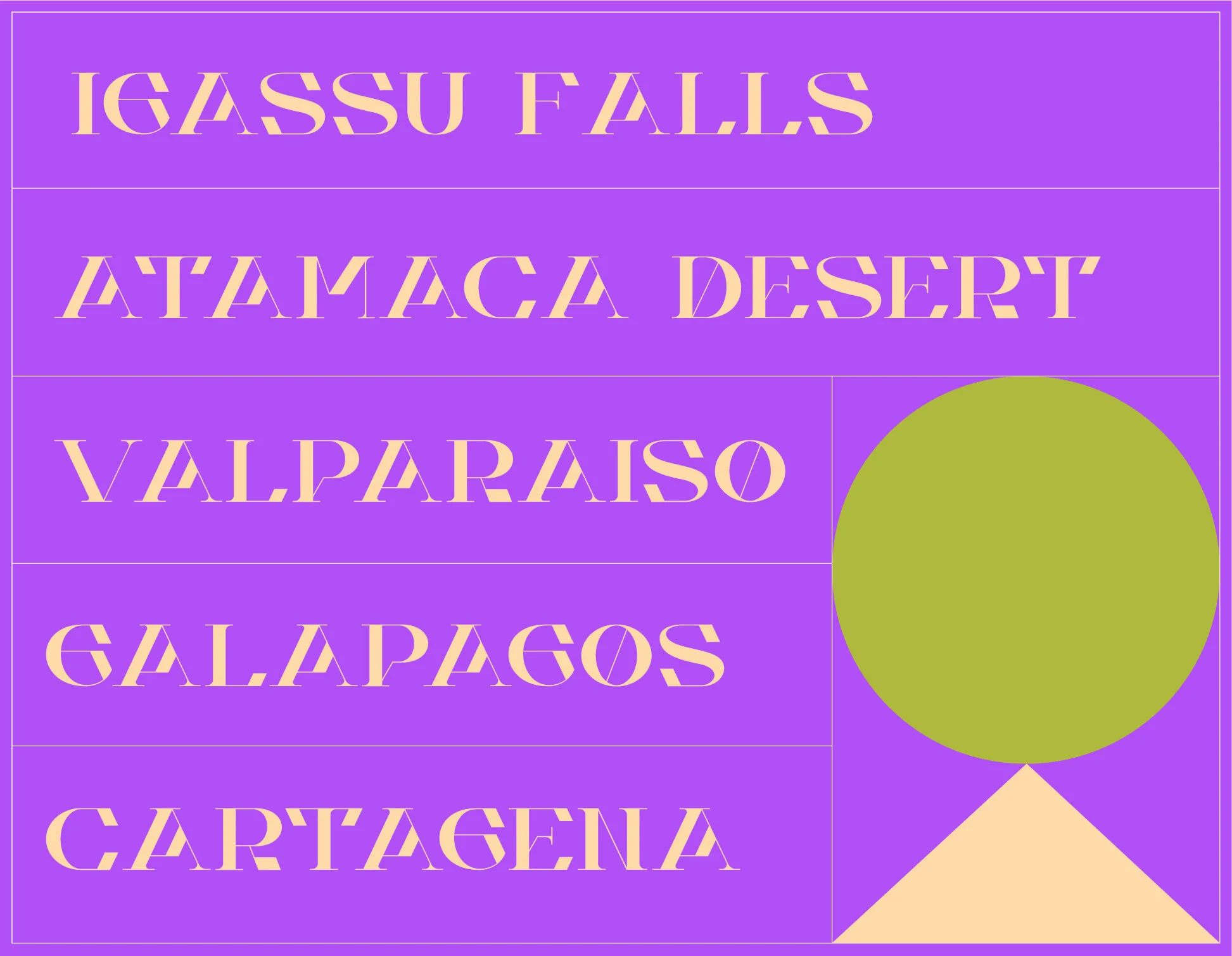
Kore Display Typeface
Kore Display is an angular serif typeface that is both bold and sophisticated. With high contrast stroke weights, consistent angles throughout, and multiple alternates for several characters, Kore Display is perfect for large text.